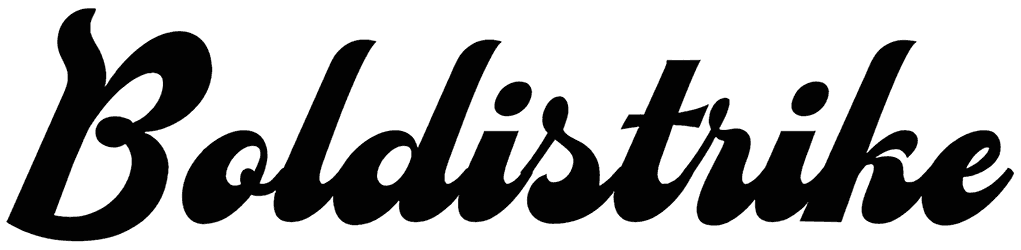
Boldistrike Font
Having vintage and lovely designs would be a hard nut with a school font like Boldistrike. With wavy and bold letters, this script font is a unique item for many themes. This old-school font is a nice display for a lot of projects, just as posters, invitation cards, planners, games, and other kinds of stuff.